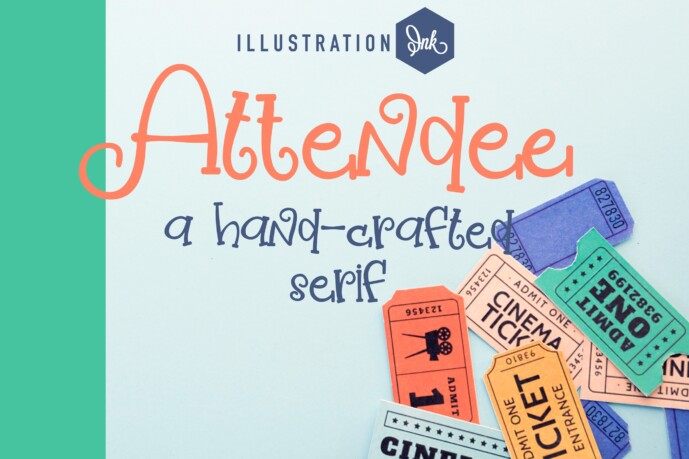
Attendee Font
Designer: Illustration Ink
Attendee Font
This hand-crafted font is a whimsical hand-written serif with a few curls here and there.
A hand-crafted font is a font that is designed to look like it was written by hand. It is often used for invitations, greeting cards, and other items. Handwritten fonts can be either formal or informal, and they can be used for a variety of purposes.